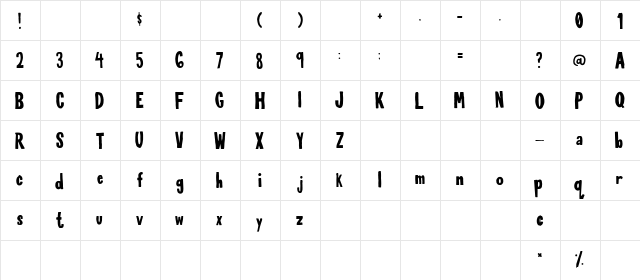
Fun Time with Me Regular
Design Context for Fun Time with Me Typeface
Fun Time with Me has an approachable, lighthearted character — its loose, expressive forms are well-suited to children's content, casual branding, and fun-first design.
Font Pairing: Pairs well with a rounded or humanist sans for body copy, maintaining the friendly tone without relying on Fun Time with Me to carry extended reading.
Pro Tip: Use Fun Time with Me at larger display sizes where its expressive character can land. Pair with a clean, simple sans for body copy to maintain readability.